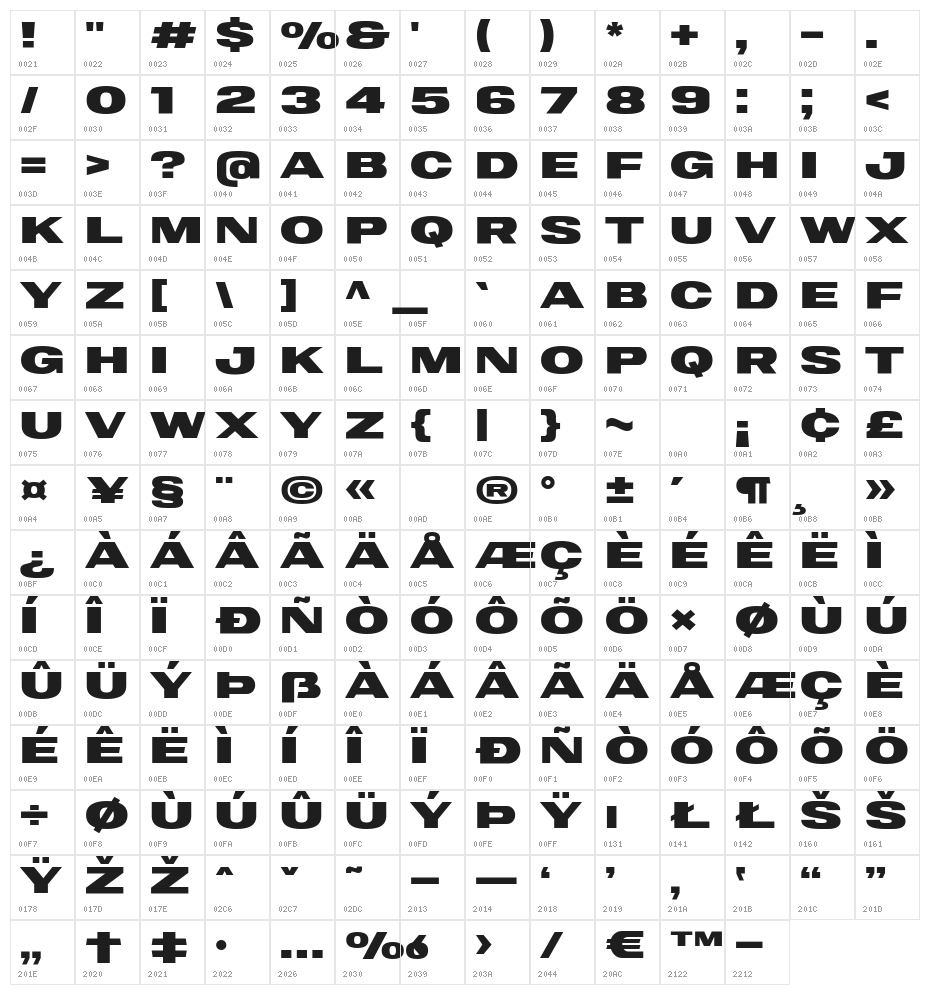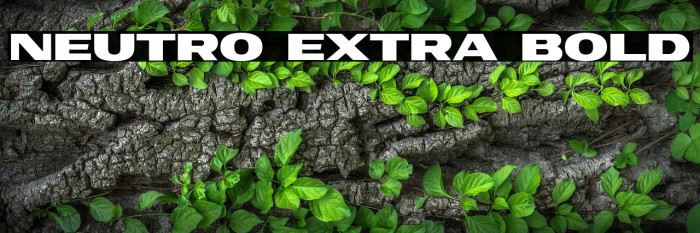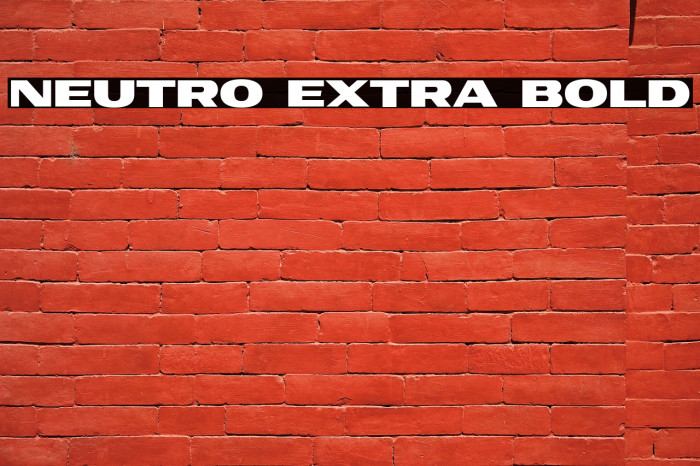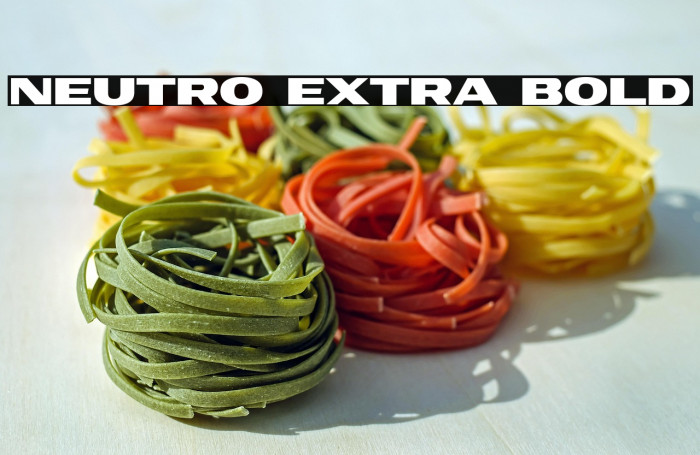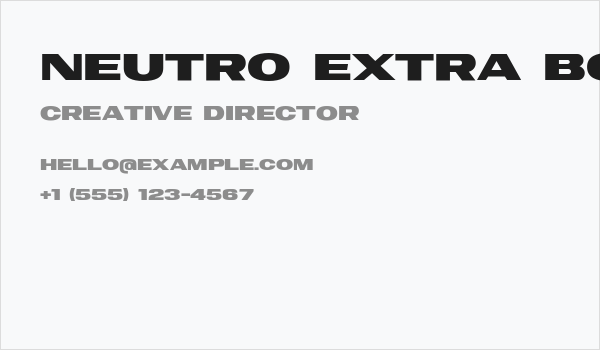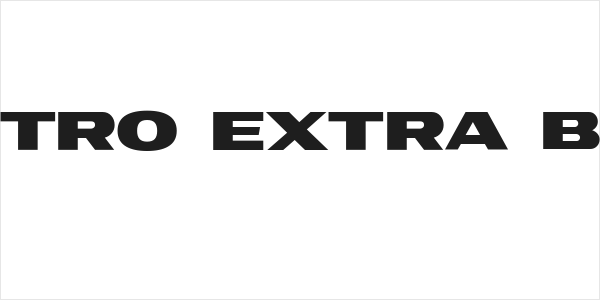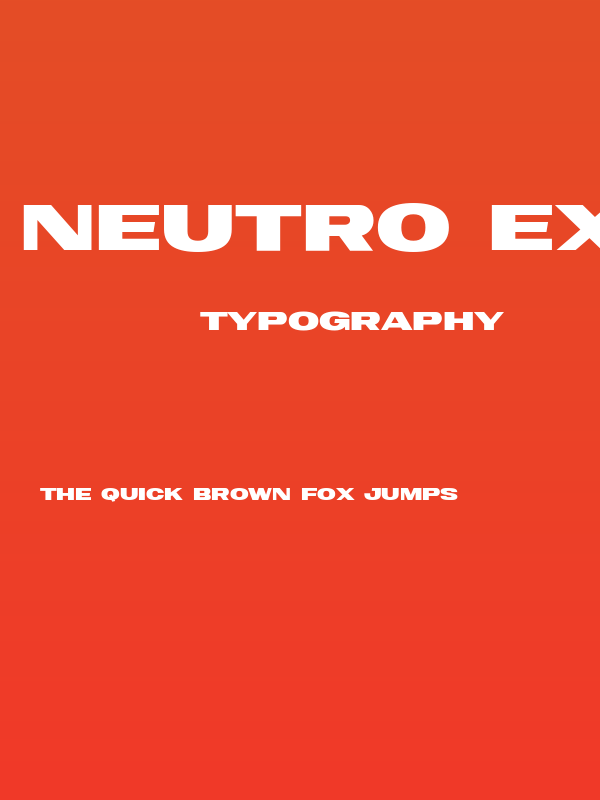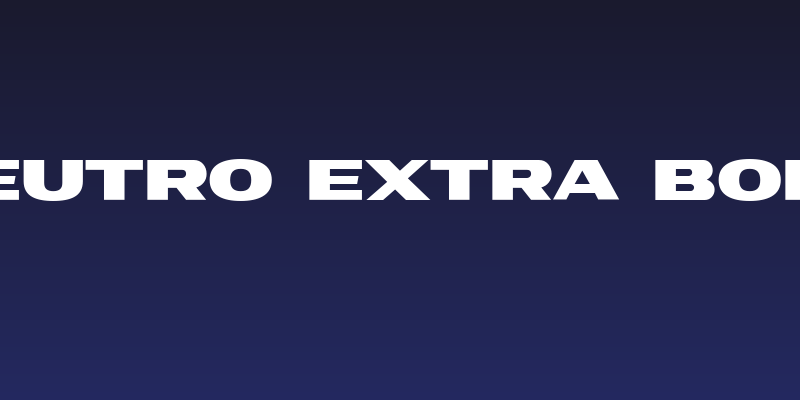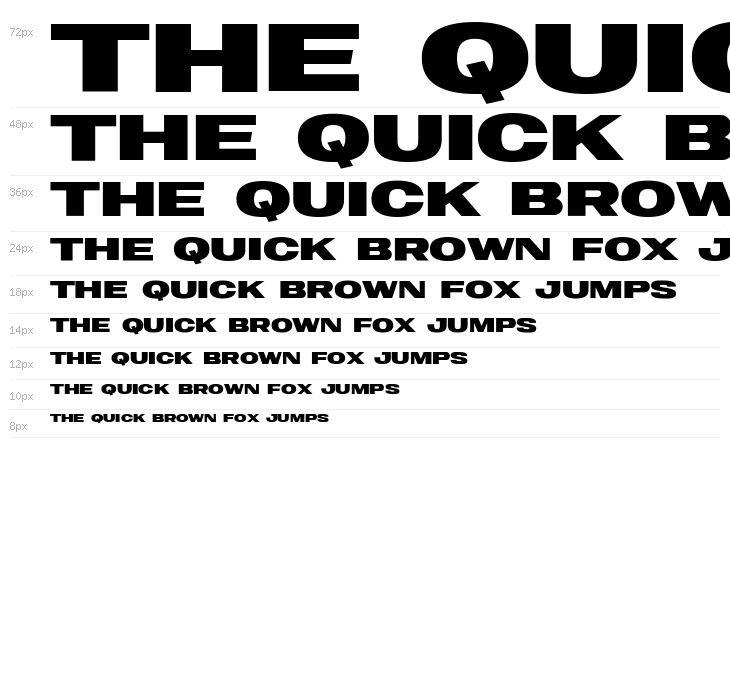
Neutro Extra Bold Font
Neutro Extra Bold Description
This font exhibits a bold and impactful style with thick, uniform strokes that convey strength and modernity. The characters are wide and have a strong presence, making them ideal for attention-grabbing headlines. The uppercase letters are particularly striking, with a consistent height and width that create a harmonious and balanced appearance. The numerals and special characters maintain the same boldness, ensuring consistency across all text elements. The font's design is clean and straightforward, with no unnecessary embellishments, emphasizing clarity and readability.
| Proposed Projects | Ideal for branding, advertising, headlines, posters, and any project requiring a bold statement. |